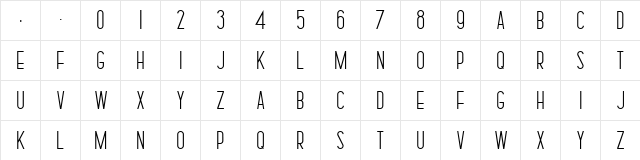
Metalarts 302 CD DP Modern Ribbon Regular
Design Context for Metalarts 302 CD DP Modern Ribbon Typeface
Metalarts 302 CD DP Modern Ribbon is a composed and adaptable typeface that performs quietly and consistently across a wide range of design contexts.
Pro Tip: Use Metalarts 302 CD DP Modern Ribbon in both headline and body roles to test its range before committing to a single application.